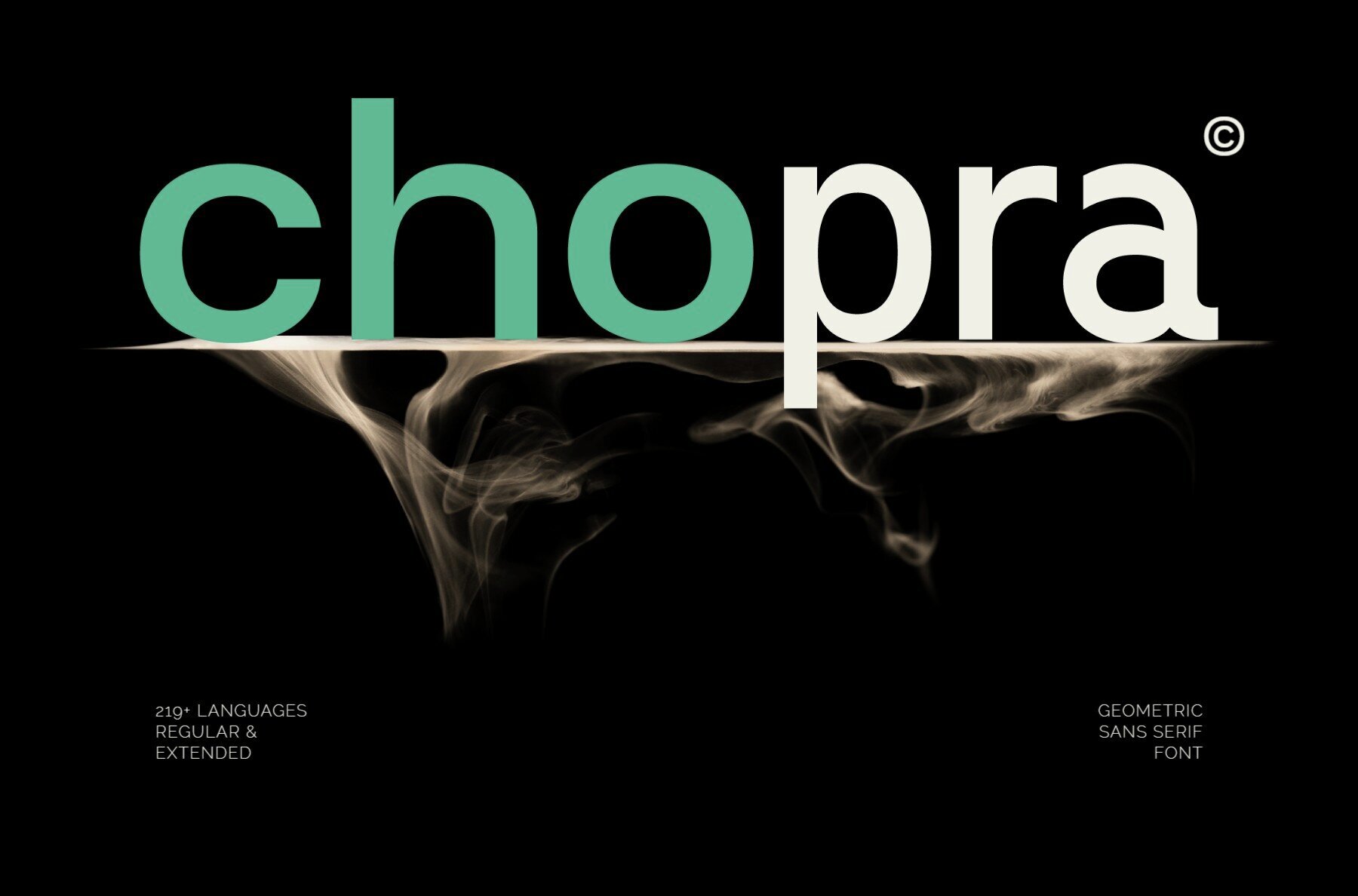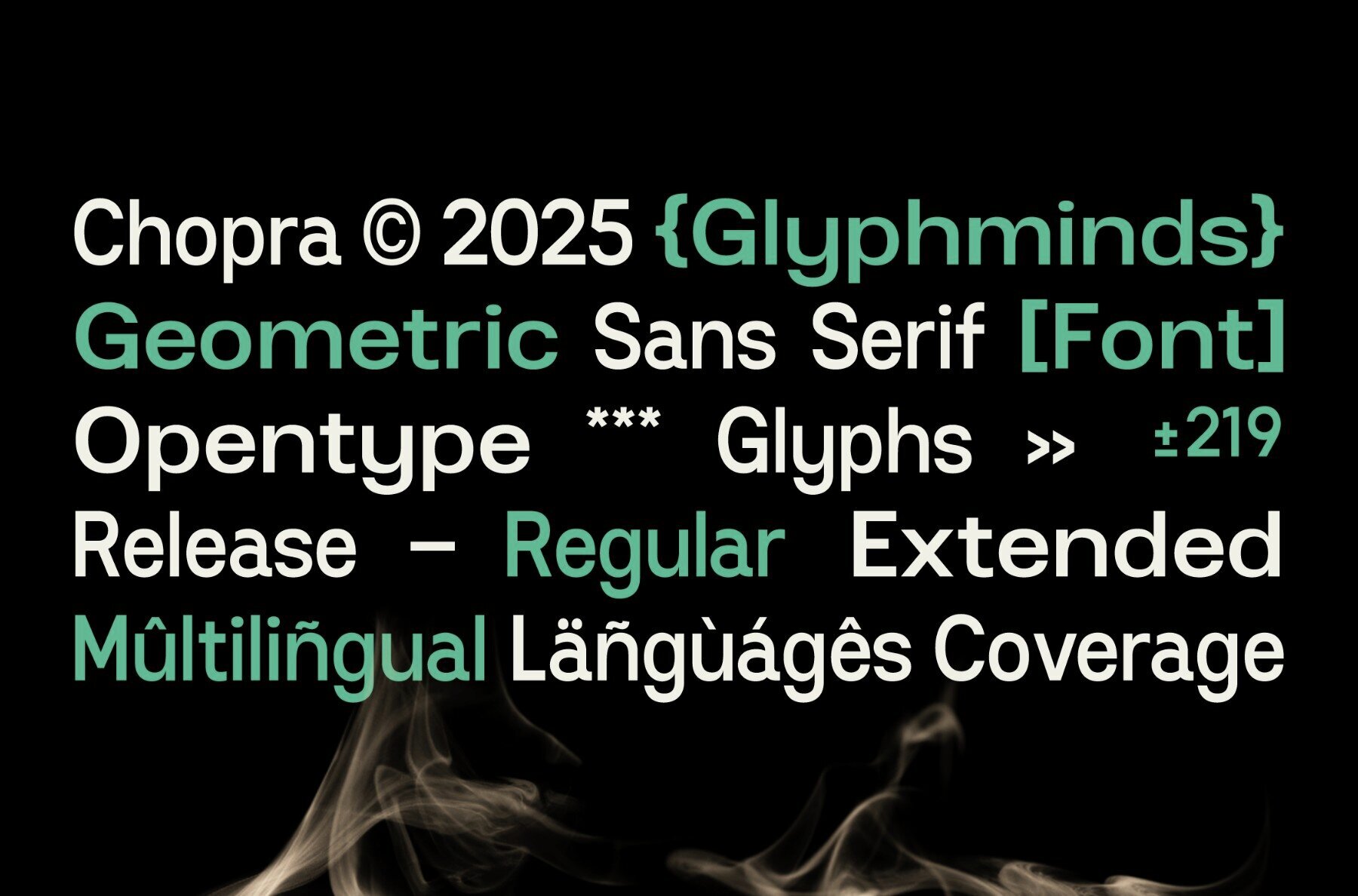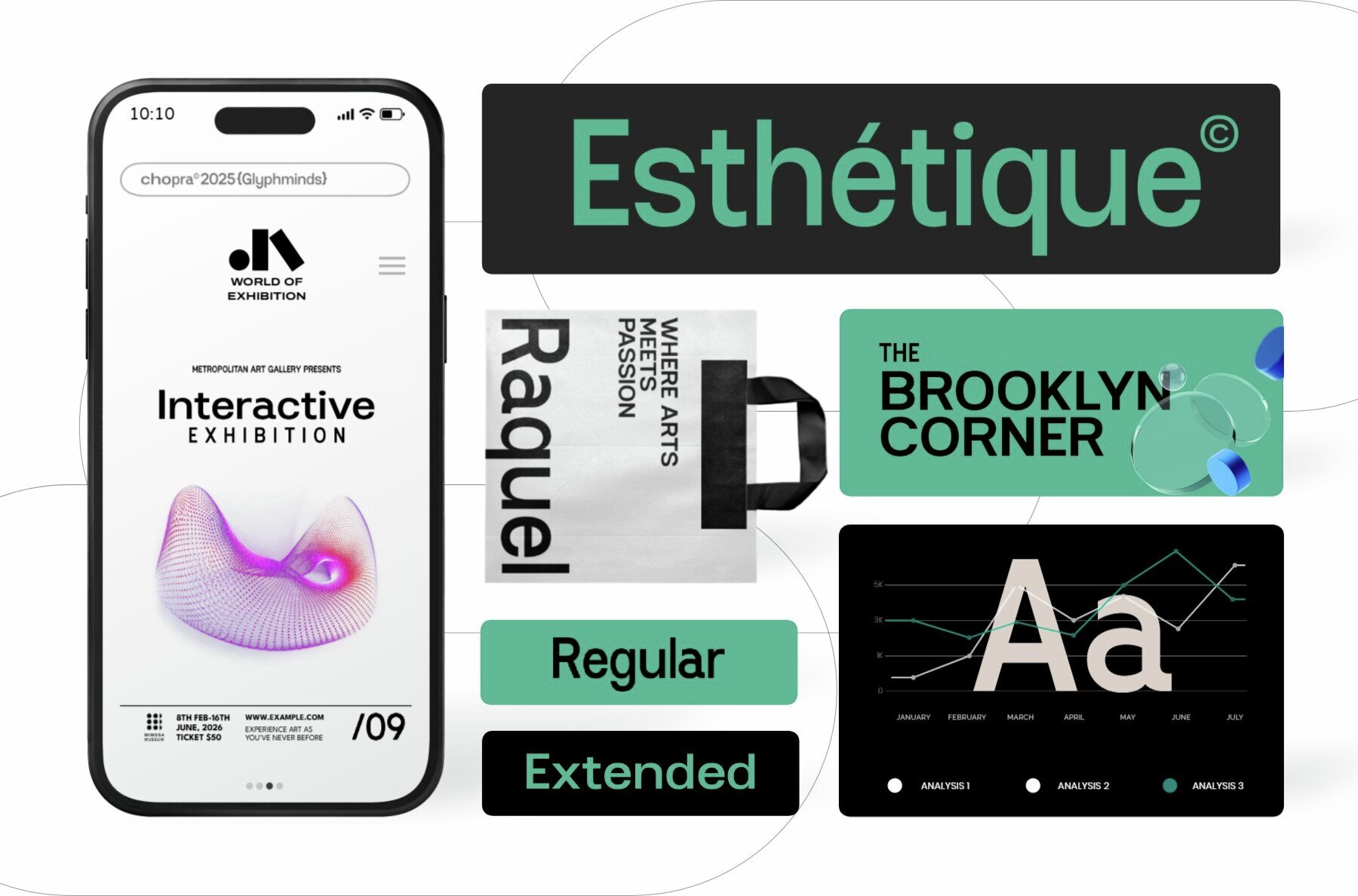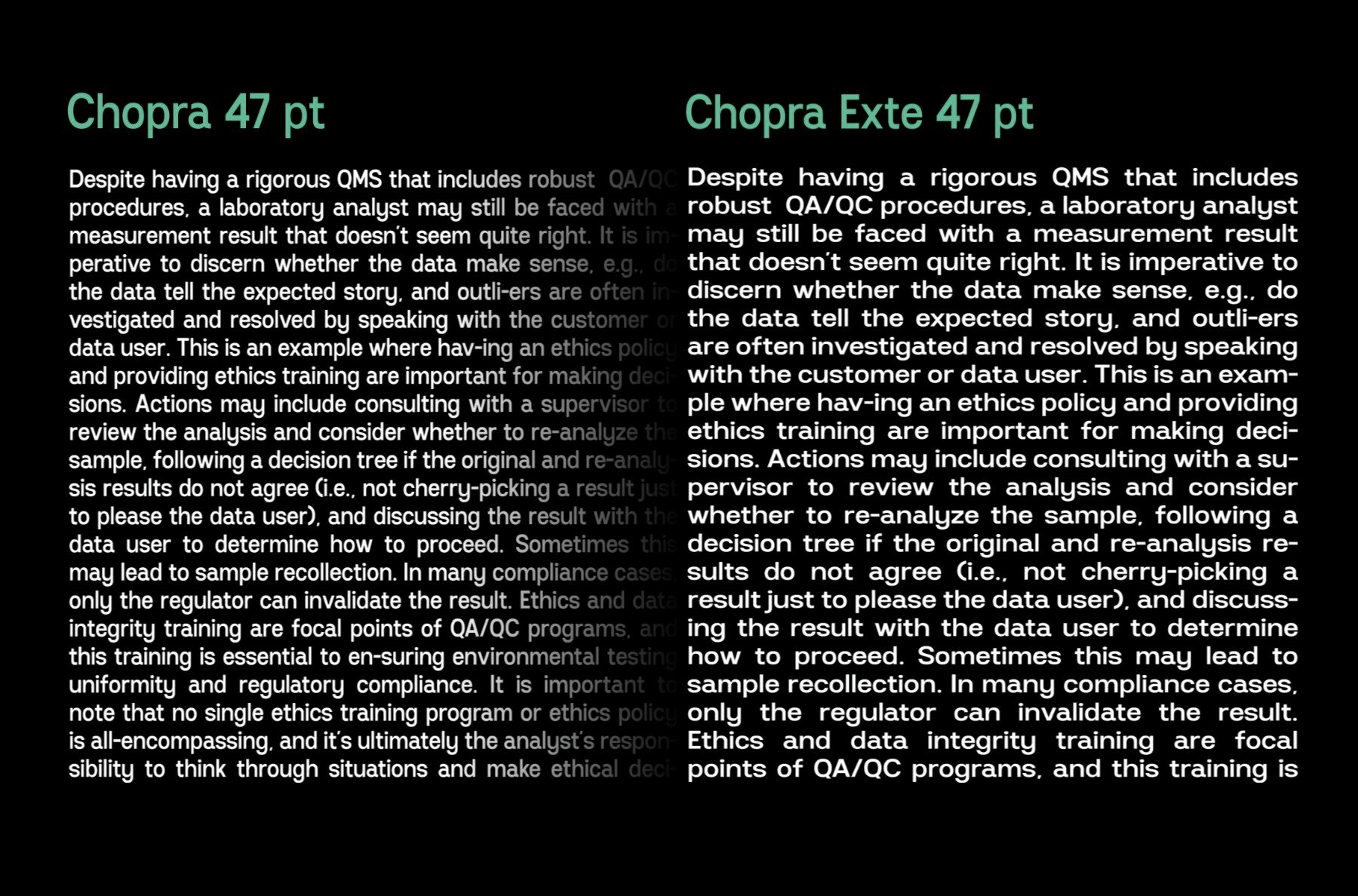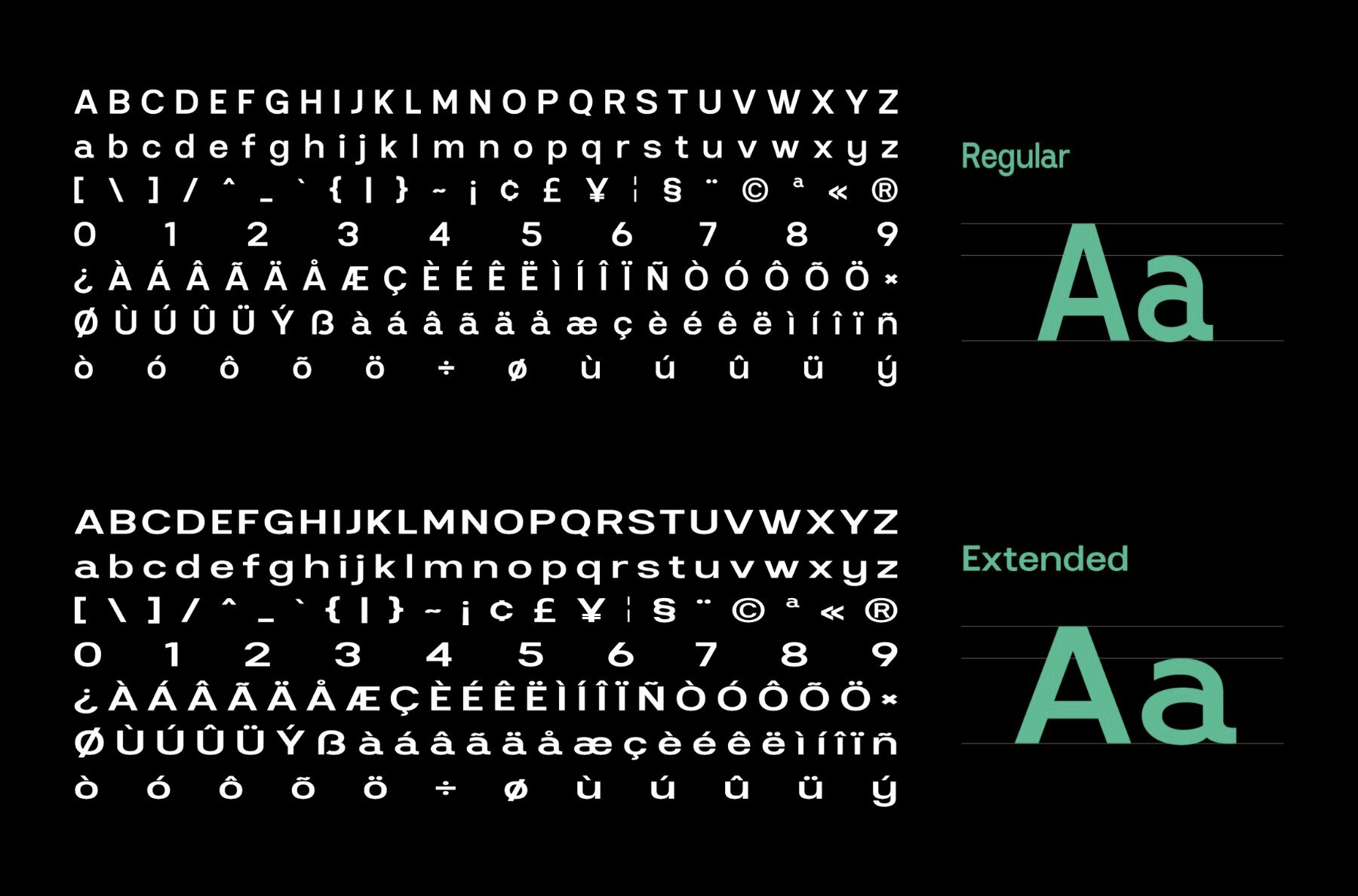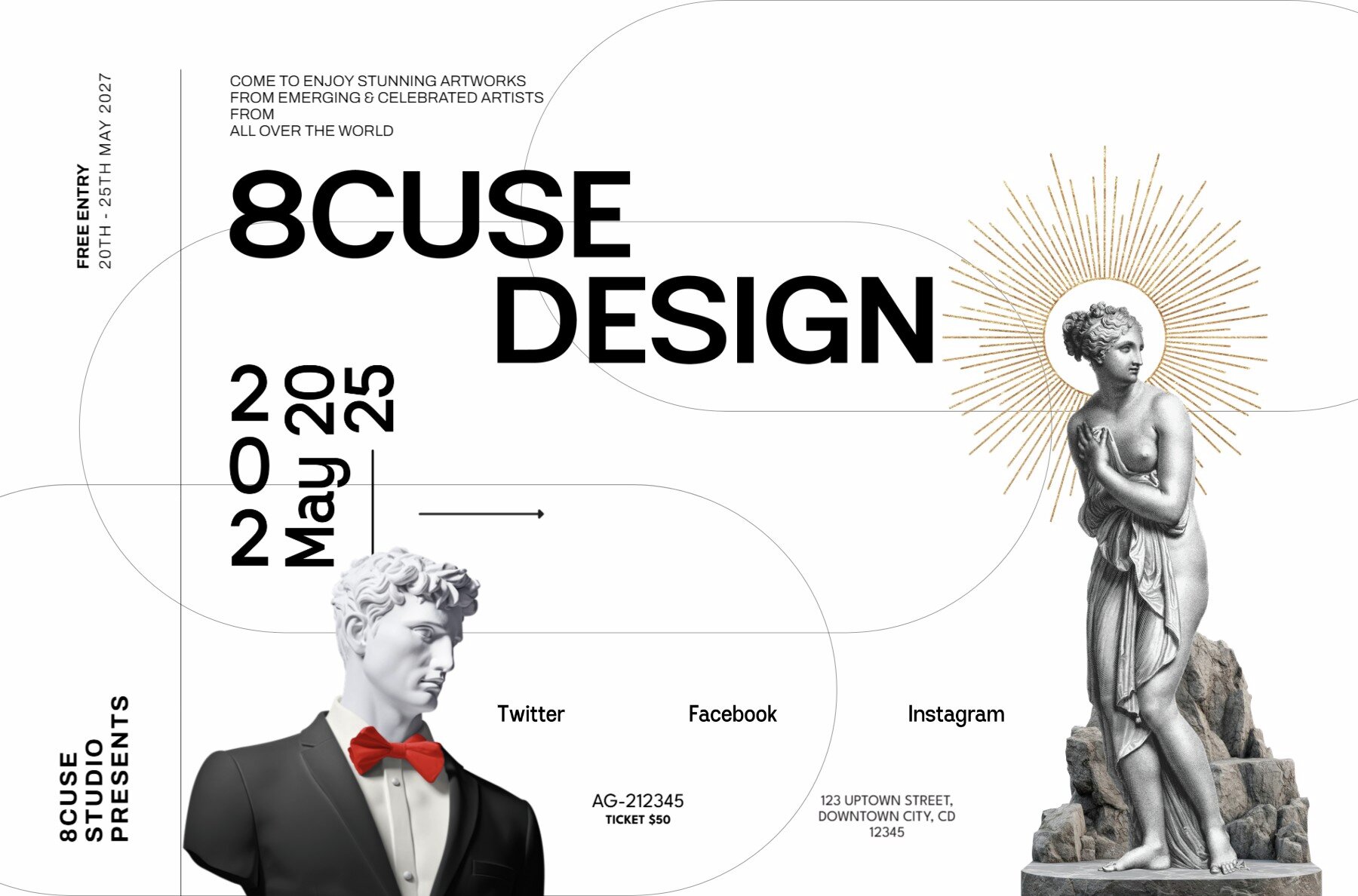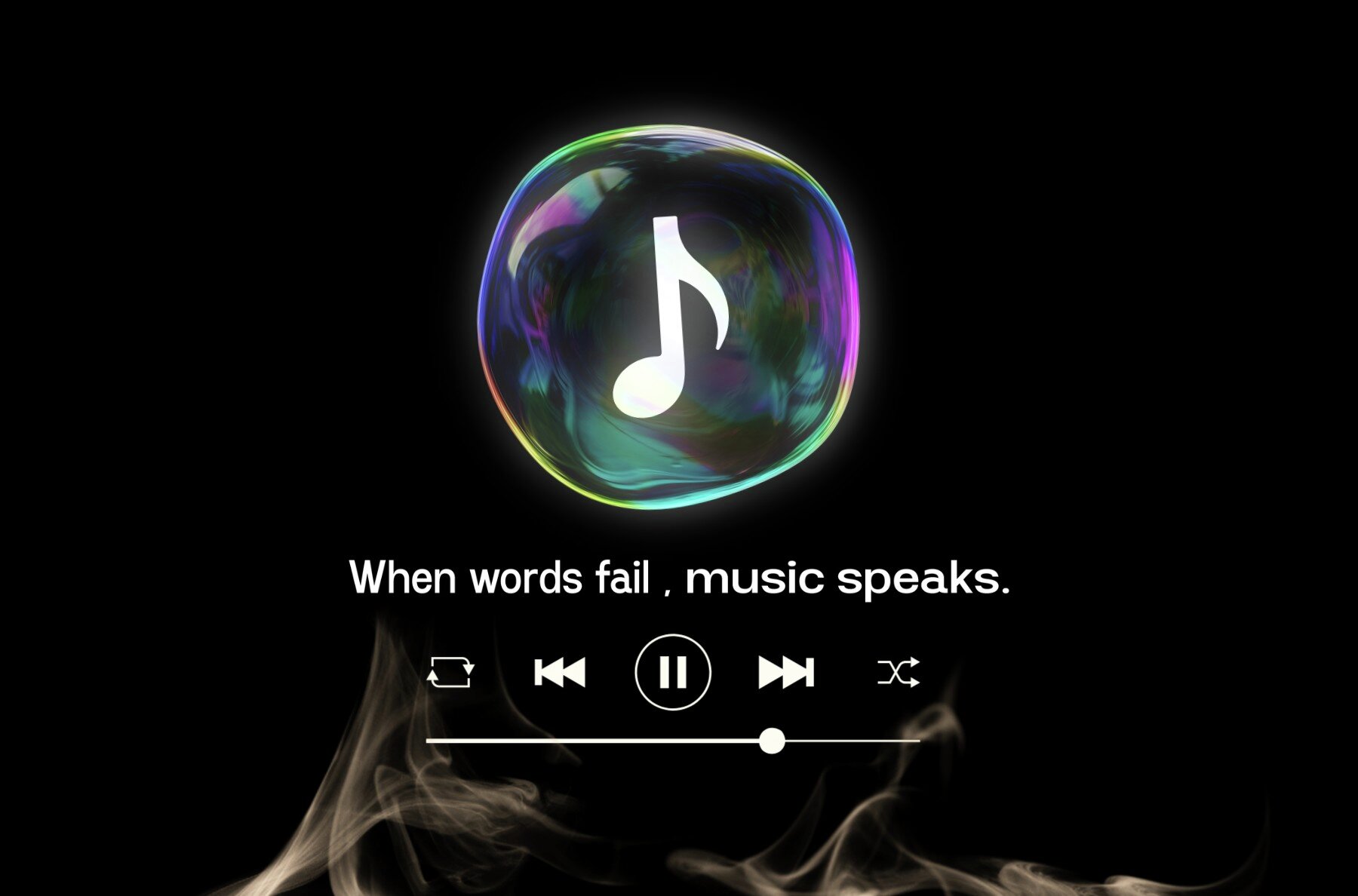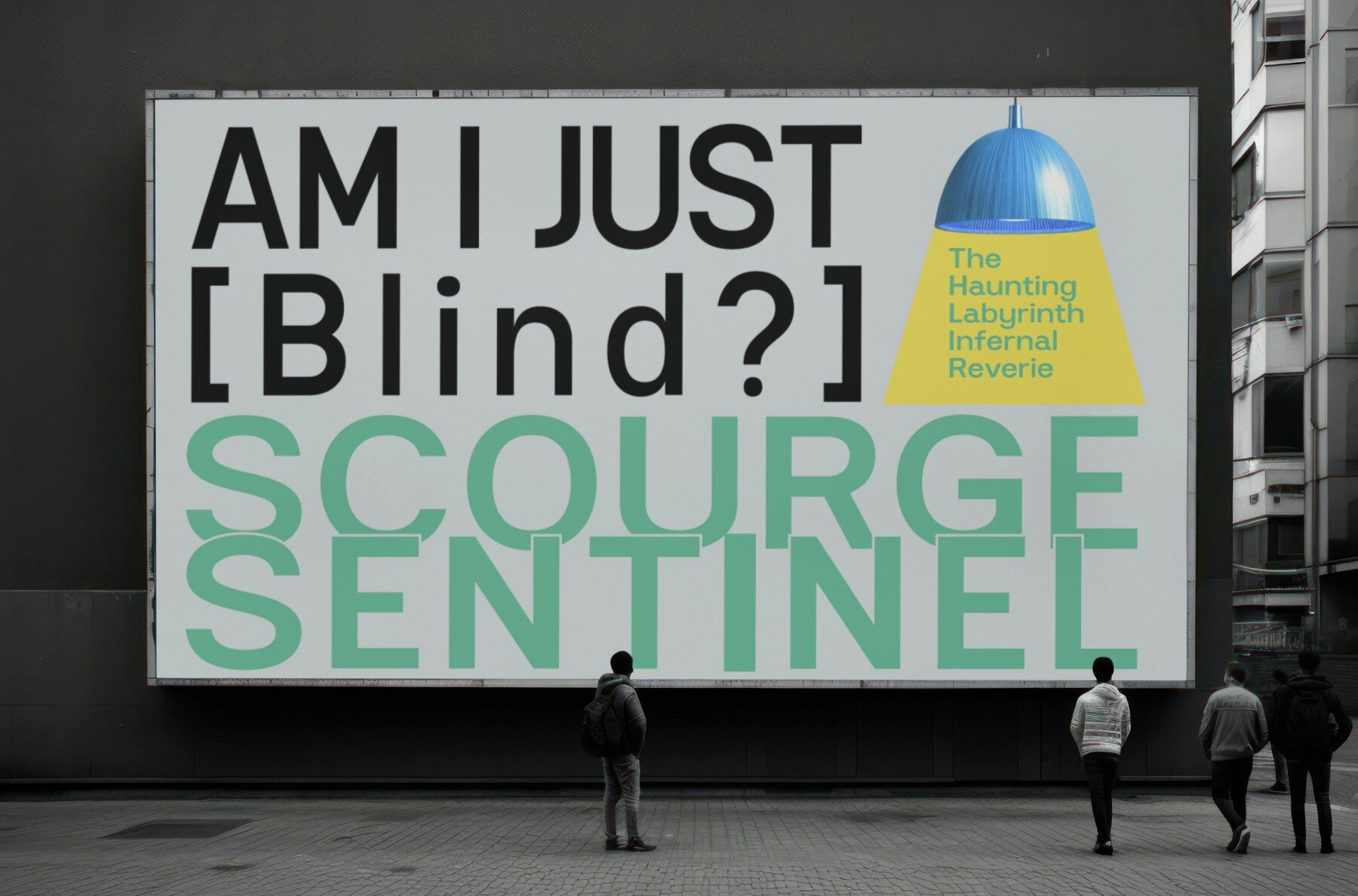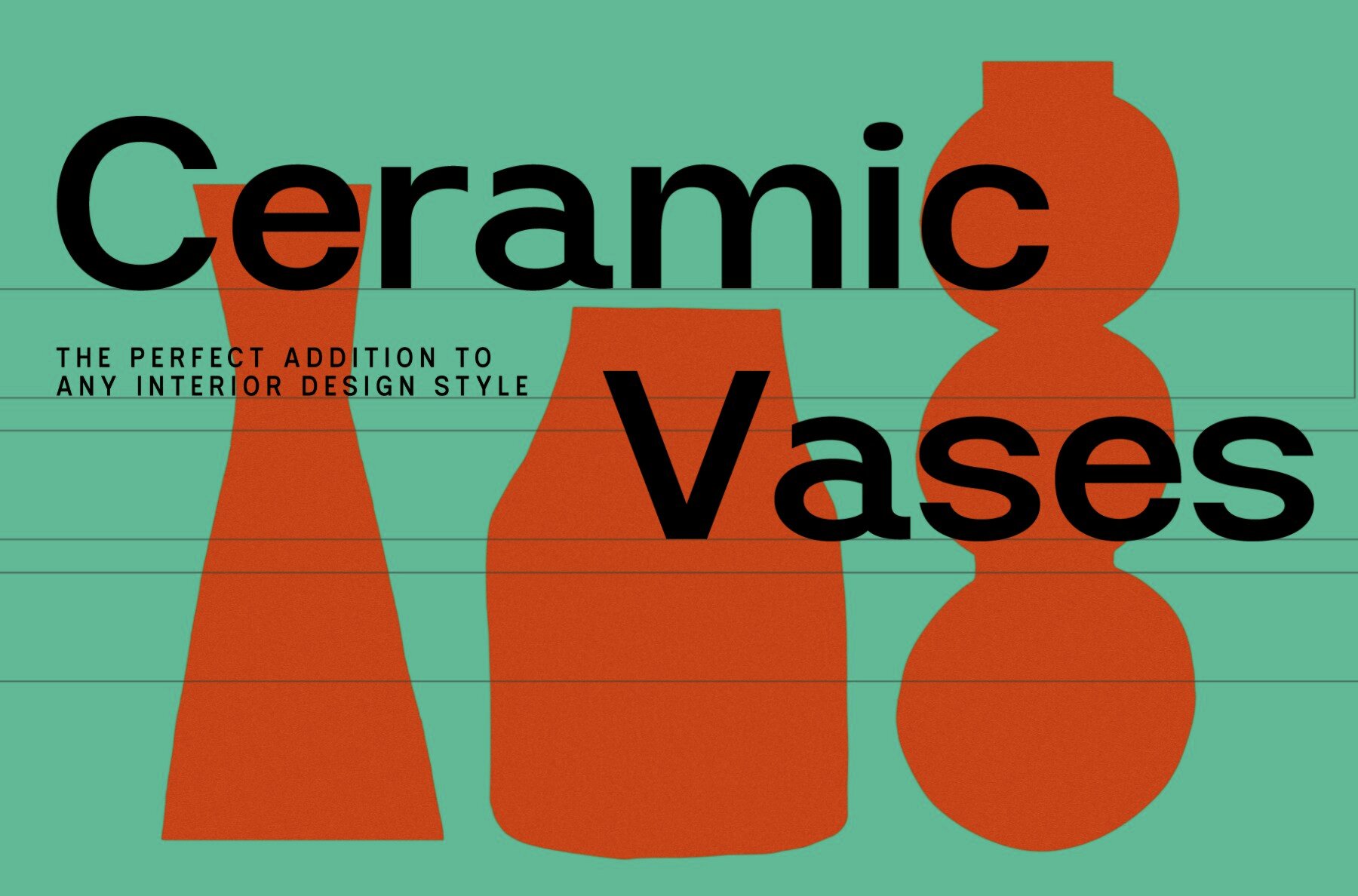
Chopra Font
Chopra’s geometric sans serif design offers a blend of precision and elegance, perfect for creators in search of simplicity and refinement. Its clean lines and well-proportioned characters make it an excellent choice for branding, logos, websites, packaging, and editorial design. With support for over 219 languages and availability in Regular and Extended styles, Chopra ensures versatility and broad applicability. Marked by a minimalist allure and subtle sophistication, Chopra maintains a timeless yet trendy appeal. Whether employed in fashion branding, tech startups, or for crafting a polished online presence, this font provides projects with a sleek, contemporary edge.Chopra: Modern Geometric Sans Serif